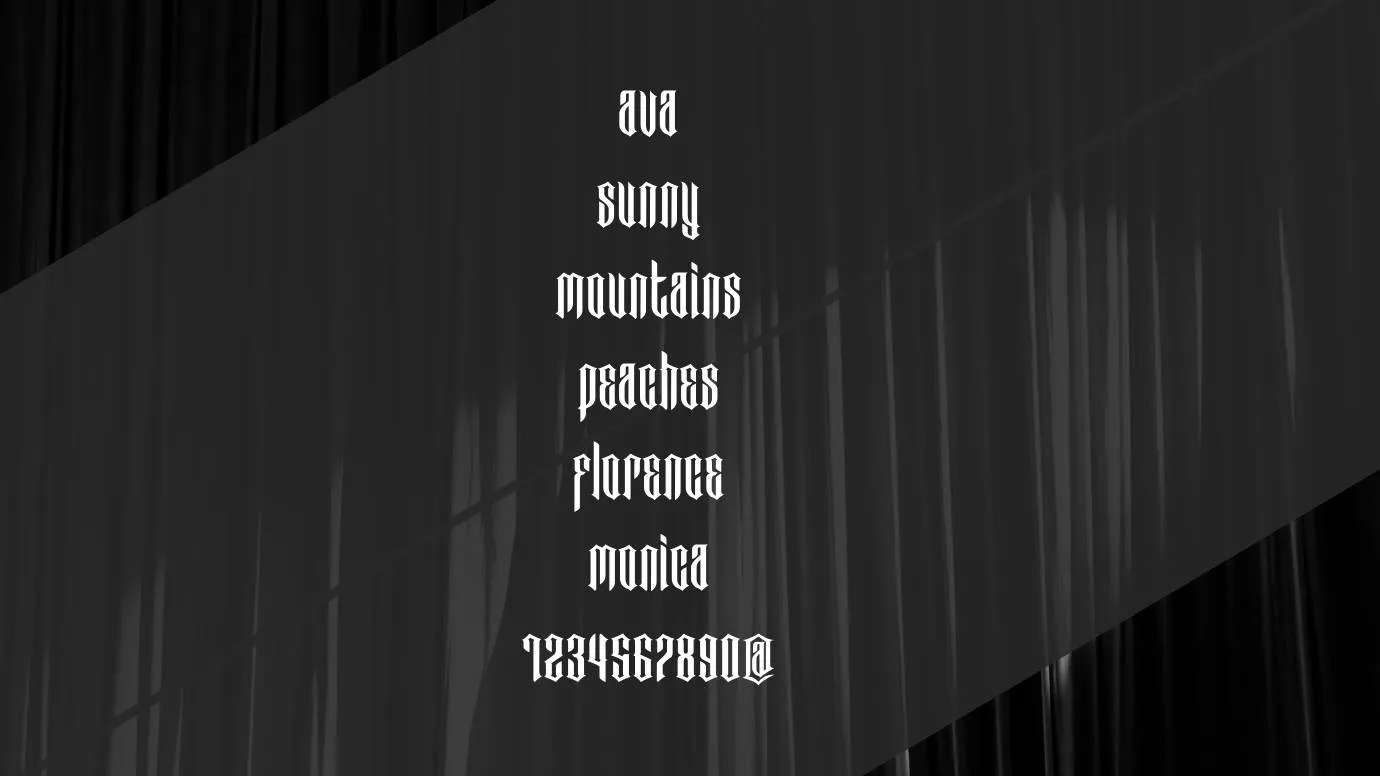
Bad Boys Font is a gothic typeface. The font is characterized by its heavy weight and medieval appearance. It was inspired by the title cards of the film “Bad Boys” (1983), which starred Sean Penn and Matt Dillon.
Bad Boys typeface is available in different styles, including Regular, Bold, and Black. Bad Boys typeface is perfect for creating grunge or gothic-style designs. It can be used for headlines, titles, and logos.
Bad Boys typeface has a complete set of characters including uppercase, lowercase, numbers, punctuation, and symbols. It also includes an alternative character set for creating gothic-style designs. This typeface is identical to the metamorphous font.
Creator of Bad Boys Font
This amazing and stunning typeface is created by Slovakia-based typeface designer Peter Bielous in 2010.
This font style is designed with a unique and regular style. This single attractive style is a mixture of multiple characteristics, containing upper- and lower-case letters, numbers, punctuations, symbols, special characters, glyphs, and different language support.
View of Bad Boys Font
| Name | Bad Boys Font |
| Style | Gothic |
| Designer | Peter Bielous |
Is Bad Boys Font Professional?
Yes, Bad Boys typeface is a professional gothic typeface created by Peter Bielous.
Is Bad Boys Font a modern font?
Yes, the Bad Boys typeface is a modern style. It was created in 2010 and has a medieval appearance.
Is Bad Boys typeface good for a resume?
No, Bad Boys typeface is not recommended for resume. It has grunge and gothic appearance that may not be suitable for all types of businesses.
What font style is Bad Boys Font?
The font style of Bad Boys typeface is gothic.